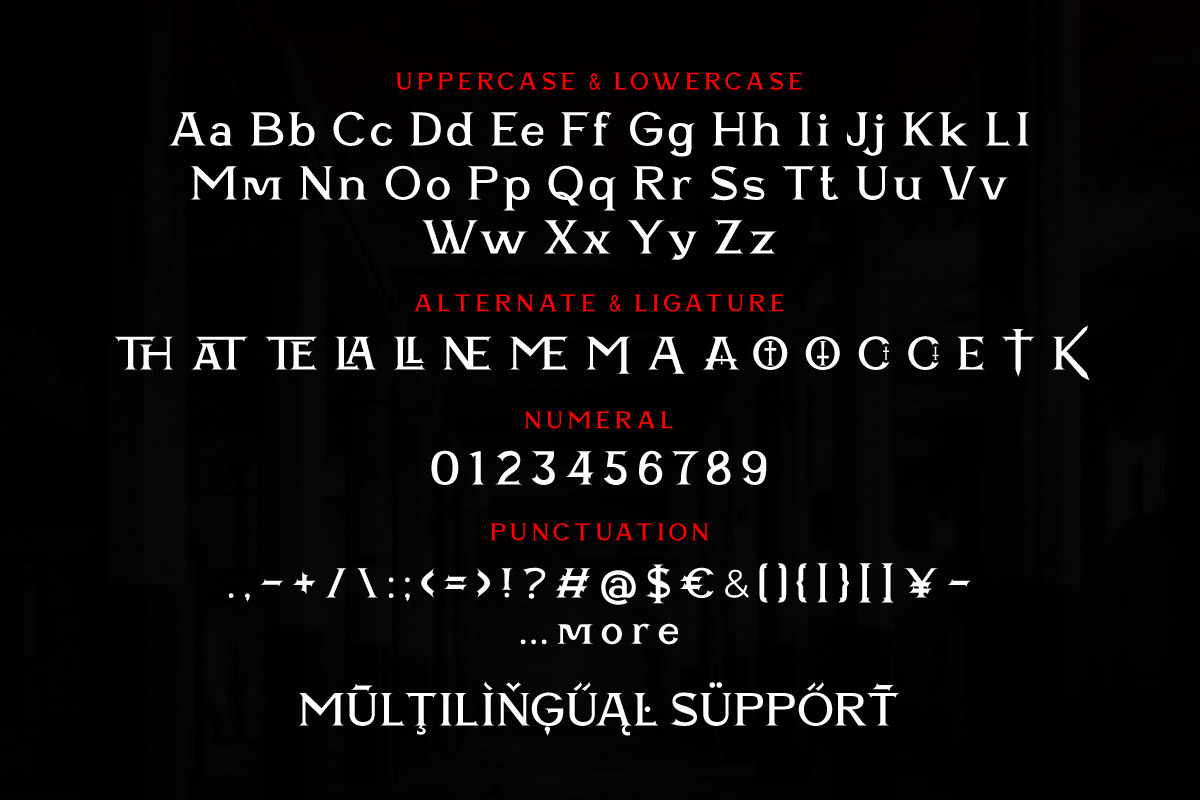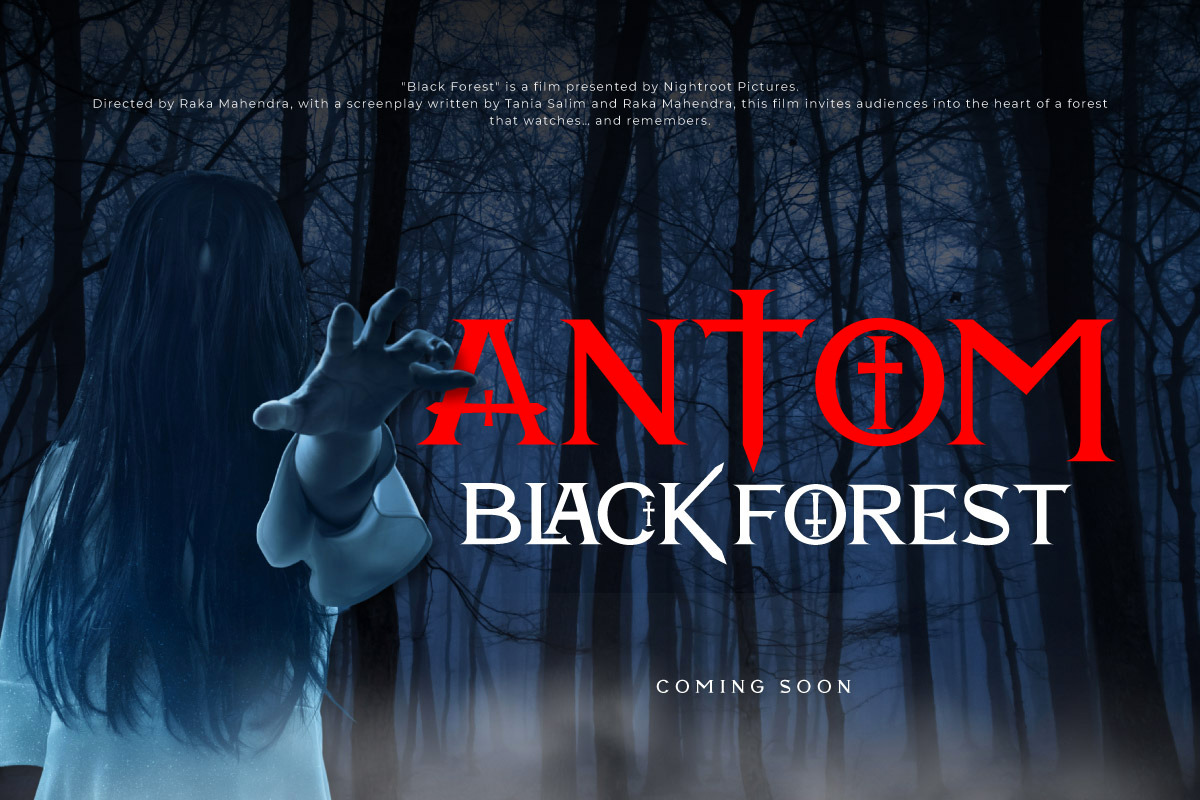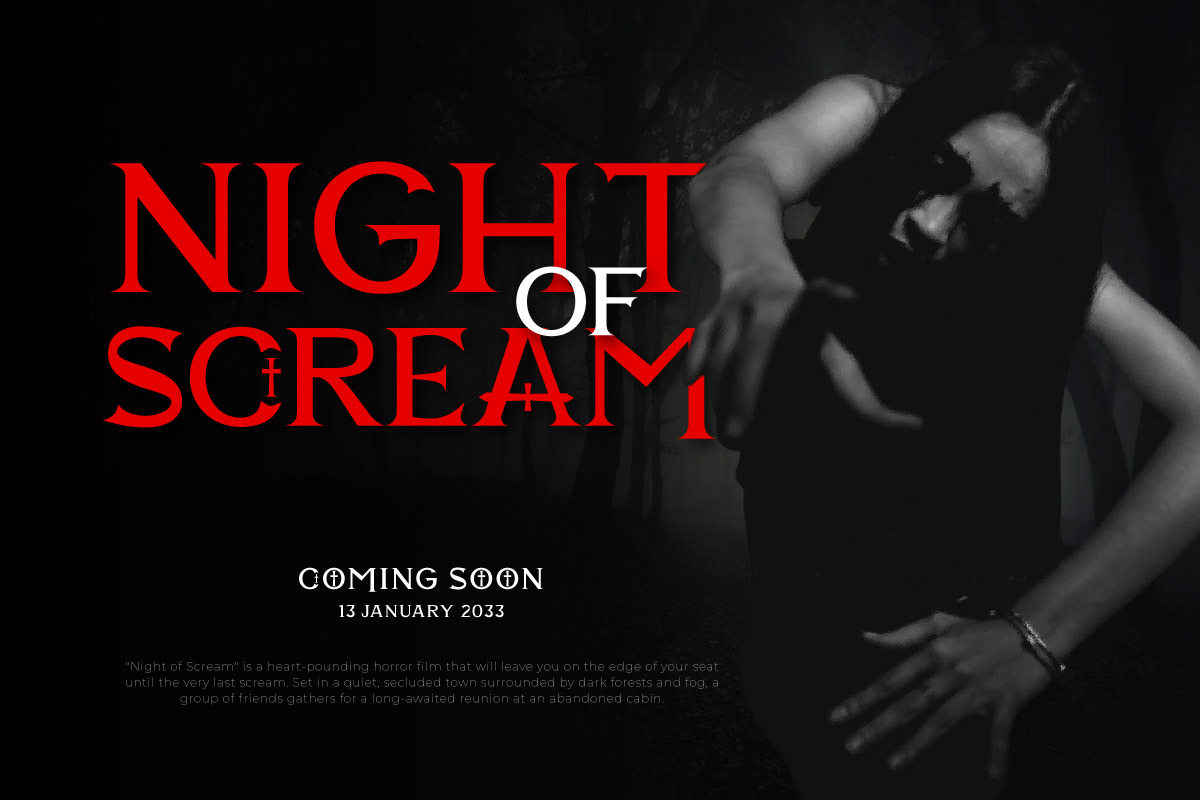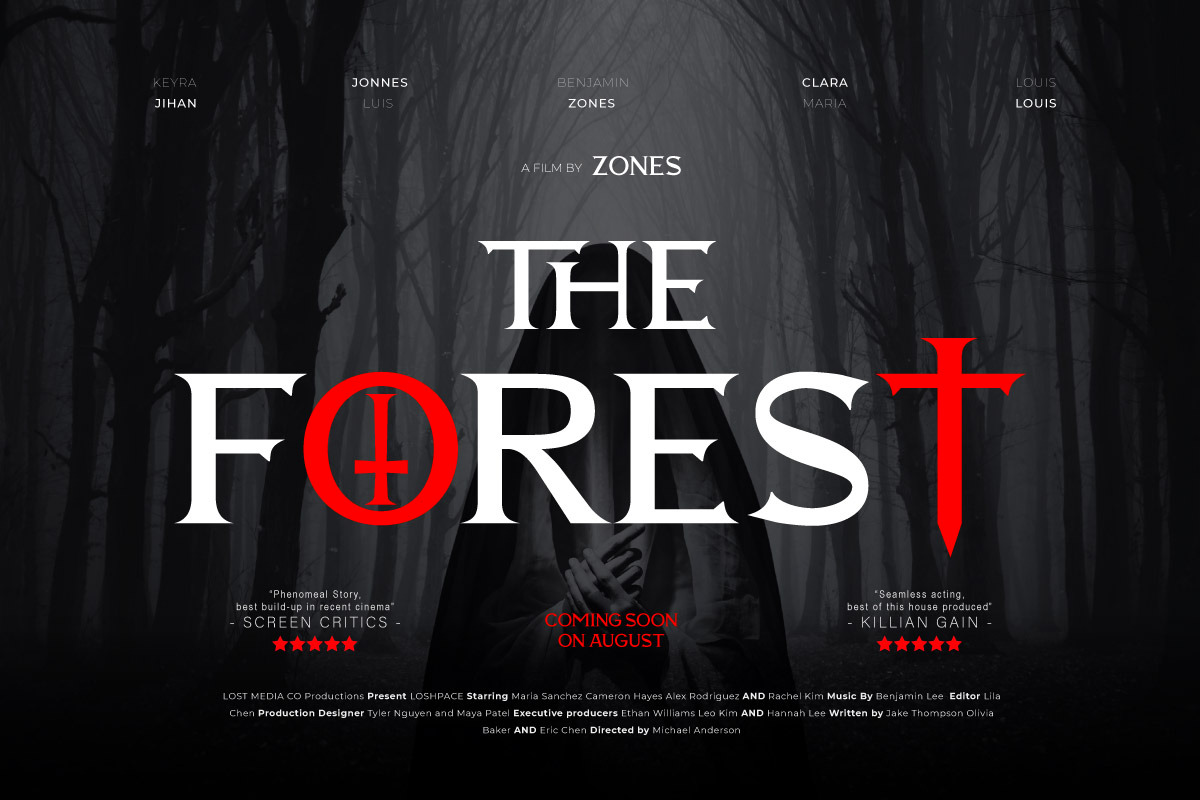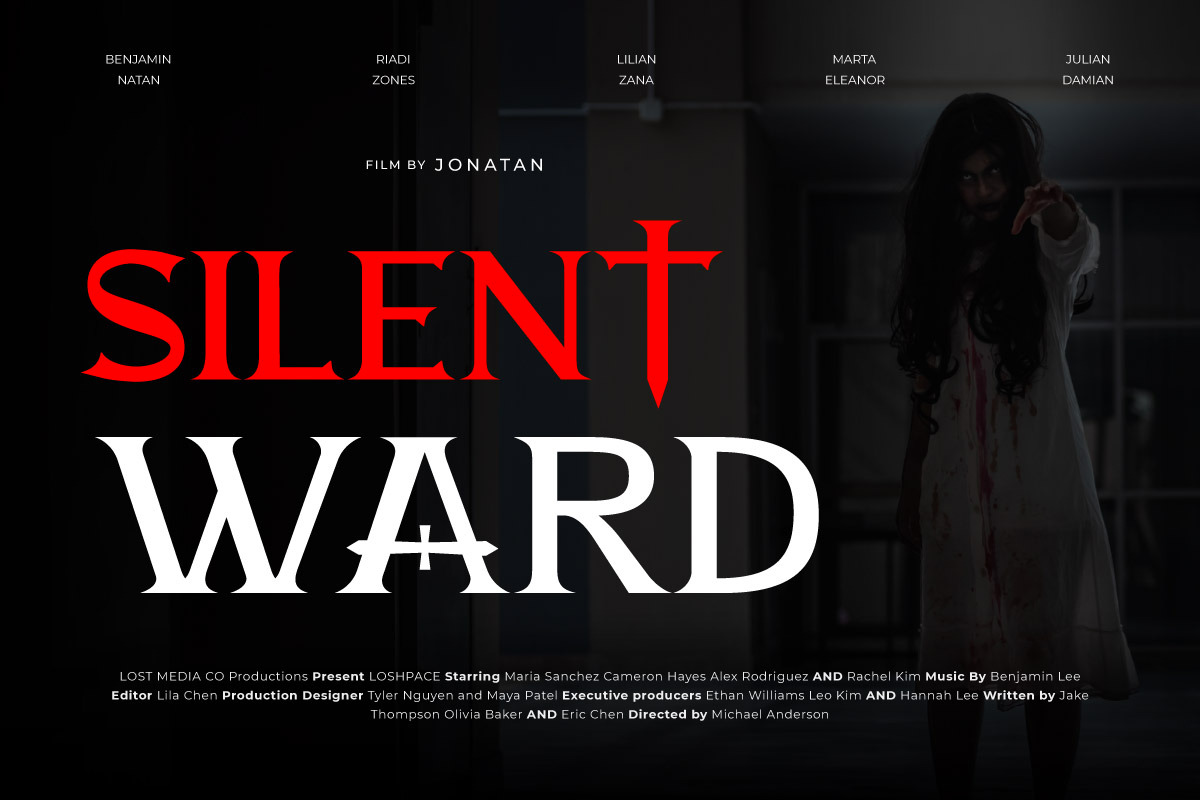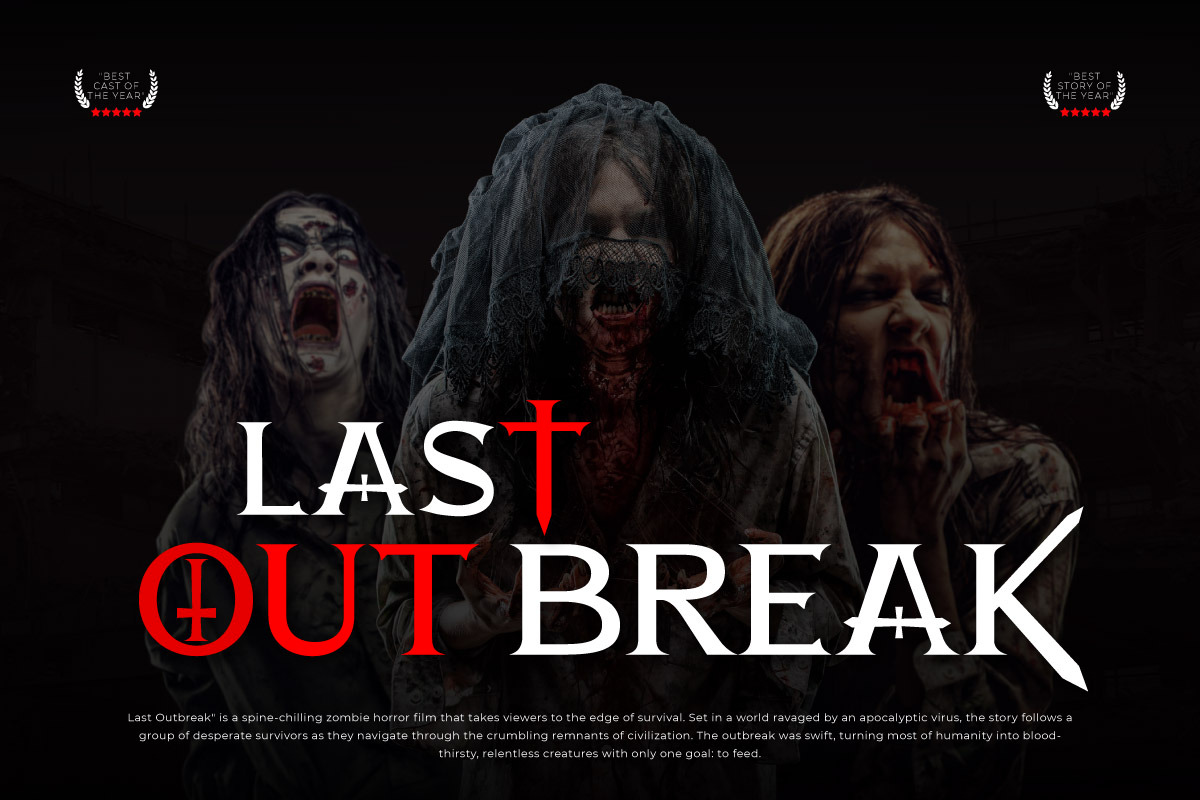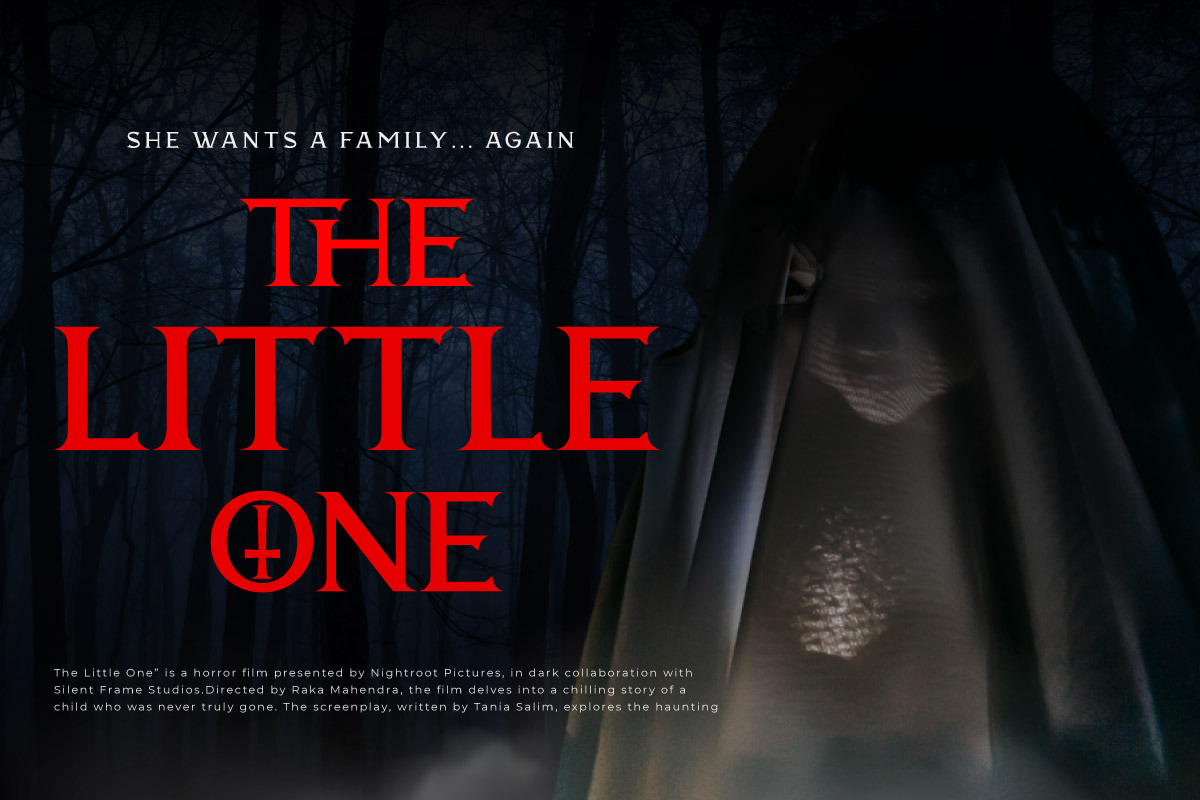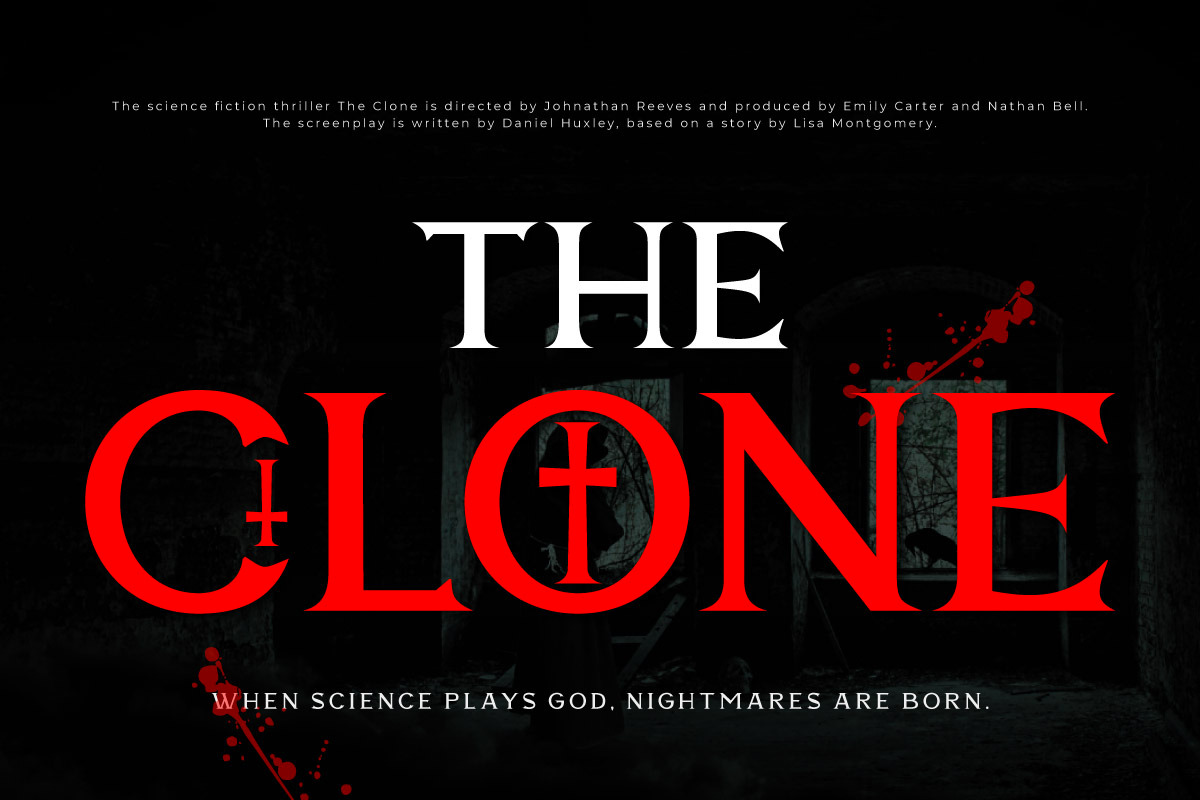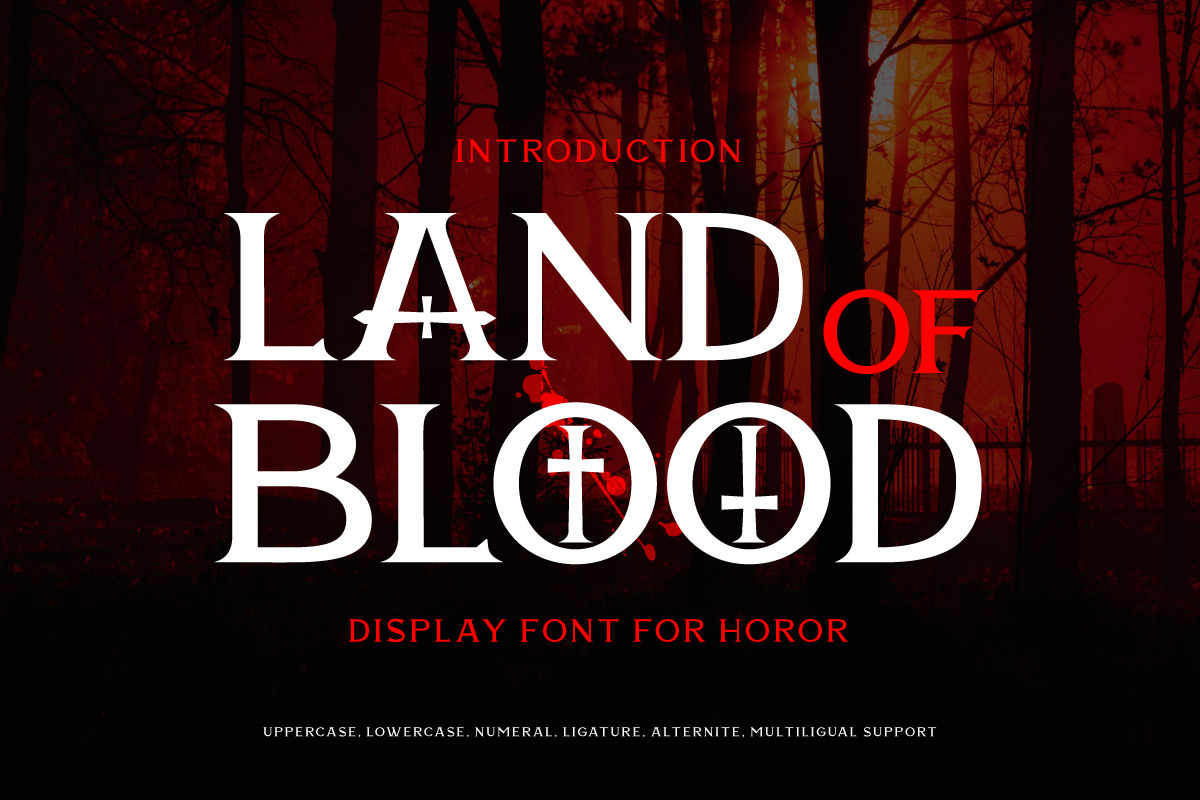
Land Of Blood - Horror Movie Font
Land Of Blood is a horror movie display font drenched in fear and dripping with dread. Each letter is crafted to resemble splattered ink and gory brush strokes—making it the perfect typeface for terrifying titles, haunted posters, thriller book covers, and any creative project that demands a blood-chilling aesthetic.
This font evokes the feeling of a classic horror scene—foggy nights, eerie footsteps, and the sight of red trailing down walls. Its jagged, uneven lines give a raw, chaotic energy, perfect for adding high-intensity visual drama to your designs. Whether you're creating a vampire-themed event, a ghostly tale, or a slasher movie, Land Of Blood will make your title scream for attention.
Use Land Of Blood to channel the horror genre in its most intense form—bold, bloody, and unforgettable.